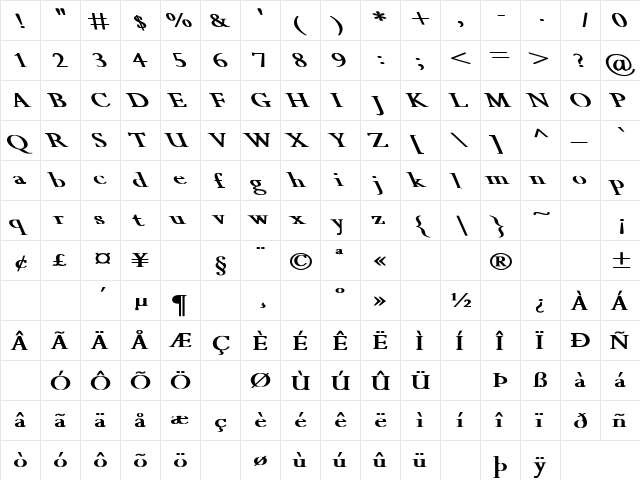
Perpetua Wide Leftified Bold Regular Font Preview
Perpetua Wide Leftified Bold Regular
Design Context for Perpetua Wide Leftified Bold Typeface
Perpetua Wide Leftified Bold takes a measured approach to typography — its balanced proportions and neutral character make it a reliable workhorse for both digital and print work. Its bold stroke weight gives it real presence on the page.